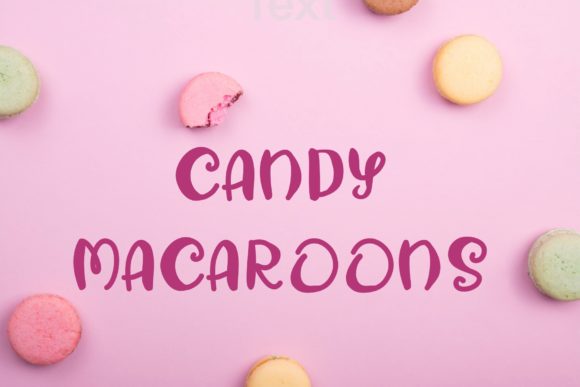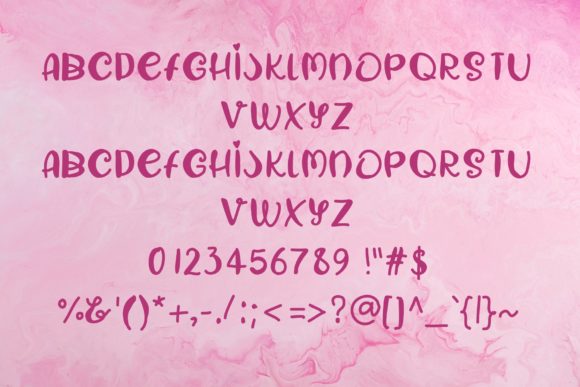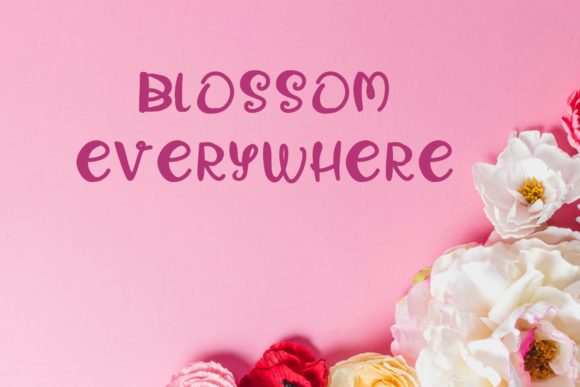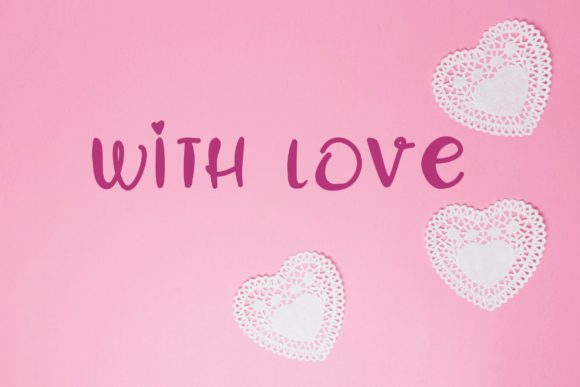
Introducing Crushie Font: The Ultimate Handwritten Font for Your Creative Projects
Are you on the lookout for a font that can add a touch of whimsy and playfulness to your designs? Look no further than Crushie Font! This adorable, round-lettered, and colorful handwritten font is sure to capture your heart with its incredibly versatile style. In this article, we’ll dive into the world of Crushie Font and explore its features, benefits, and uses, helping you to unlock its full potential and create spectacular designs that stand out from the crowd.
What is Crushie Font?
Crushie Font is a modern, handwritten font that boasts a unique and captivating style. Its round letters and colorful appearance make it perfect for a wide range of creative projects, from digital designs to print materials. Whether you’re a designer, crafter, or DIY enthusiast, Crushie Font is an excellent addition to your font collection.
Key Features of Crushie Font
- Cute and Playful: Crushie Font features a sweet and endearing style that’s sure to charm your audience.
- Round-Letered: The font’s rounded letters give it a soft and approachable feel, perfect for designs that require a friendly tone.
- Colorful: Crushie Font comes in a variety of colors, allowing you to add a pop of color to your designs and make them more engaging.
- Versatile: This font is incredibly versatile and can be used for a wide range of projects, from invitations and greeting cards to social media graphics and website headers.
Benefits of Using Crushie Font
So, why should you choose Crushie Font for your next project? Here are just a few benefits of using this amazing font:
- Adds a Personal Touch: Crushie Font’s handwritten style gives your designs a personal and human touch, setting them apart from more formal and traditional fonts.
- Enhances Creativity: The font’s playful and colorful nature can inspire creativity and help you think outside the box when designing.
- Perfect for Branding: Crushie Font is ideal for brands that want to convey a friendly and approachable image, making it perfect for logos, packaging, and marketing materials.
Uses of Crushie Font
Crushie Font is an incredibly versatile font that can be used for a wide range of projects, including:
- Digital Designs: Use Crushie Font to create stunning social media graphics, blog headers, and website elements.
- Print Materials: Add a touch of whimsy to your print materials, such as invitations, greeting cards, and brochures.
- Crafting Projects: Crushie Font is perfect for crafters who want to add a personal touch to their projects, such as scrapbooking, journaling, and card making.
Tips for Using Crushie Font
To get the most out of Crushie Font, here are a few tips to keep in mind:
- Experiment with Colors: Don’t be afraid to try out different colors and combinations to find the perfect look for your design.
- Mix and Match: Combine Crushie Font with other fonts to create a unique and eye-catching design.
- Keep it Simple: Don’t overcomplicate your design – Crushie Font’s simplicity and elegance can shine on its own.
In conclusion, Crushie Font is a must-have font for designers, crafters, and DIY enthusiasts who want to add a touch of whimsy and playfulness to their projects. Its cute, round-lettered, and colorful style makes it perfect for a wide range of creative projects, from digital designs to print materials. With its versatility, benefits, and ease of use, Crushie Font is sure to become a favorite in your font collection. So why wait? Fall in love with Crushie Font and start creating spectacular designs today!